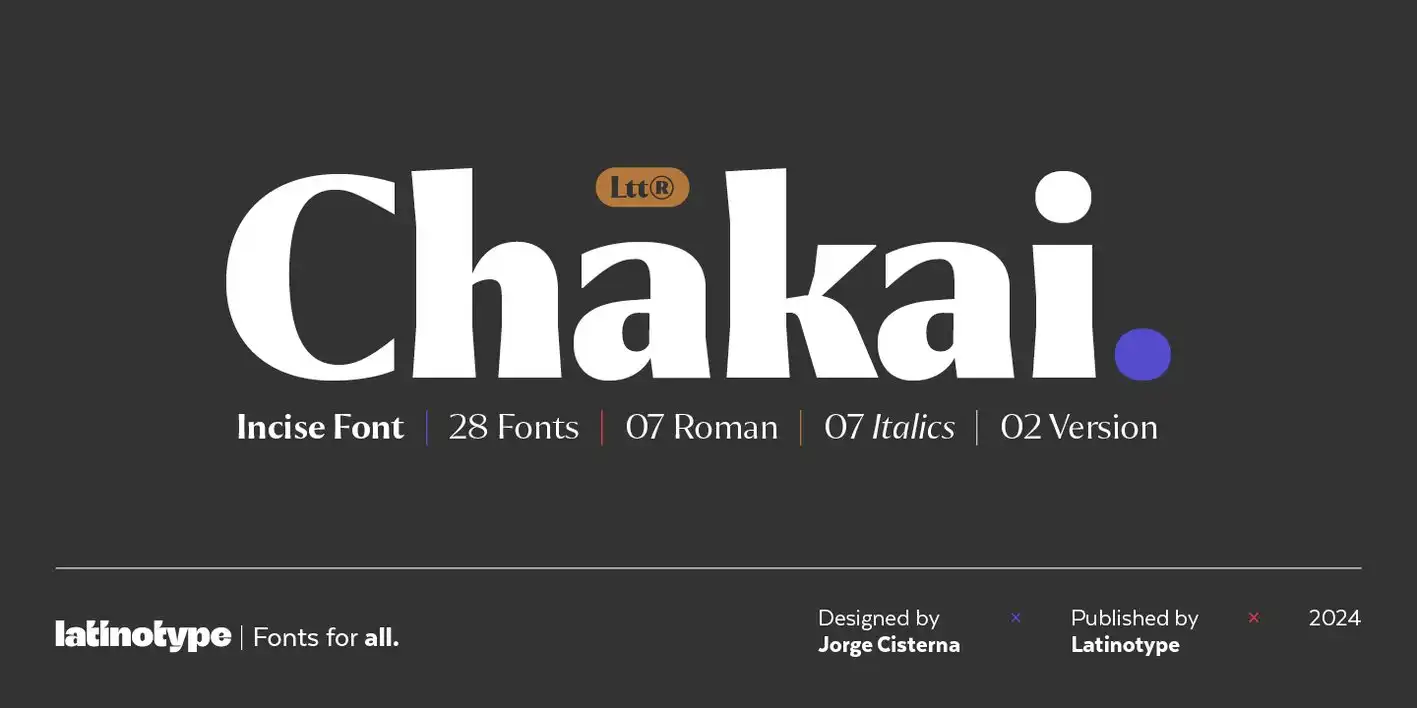
The Chakai Font is exceptionally suited for numerous cultural and sophisticated applications including tea house branding, Eastern philosophy publications, meditation center communications, zen garden signage, traditional wellness packaging, mindfulness app interfaces, spiritual retreat materials, cultural festival promotions, artisanal craft labeling, and holistic lifestyle marketing. Its distinctive character makes it particularly effective for wellness centers, cultural organizations, mindfulness brands, and lifestyle companies seeking to convey tranquility, cultural wisdom, and spiritual sophistication in their visual communications and brand presentations.
What makes the Chakai Font extraordinarily exciting is its perfect embodiment of Eastern aesthetic principles combined with contemporary typographic excellence. This elegant typeface captures the essence of traditional tea ceremony culture and mindful living while incorporating modern design elements that ensure optimal performance across today's diverse wellness market landscape. The font's captivating character emerges from its harmonious letterforms, balanced proportions, and carefully crafted details that evoke a sense of inner peace and cultural authenticity, making it perfect for brands seeking to establish credibility in the mindfulness sector and appeal to spiritually conscious audiences.
The Chakai Font family offers a comprehensive collection of weights and styles designed to accommodate various wellness and cultural branding requirements. The collection typically includes light, regular, medium, bold, and black weights, with many versions featuring serene italic variants that enhance the font's meditative appeal and cultural character. Some editions may include zen-inspired alternates, traditional ornaments, and mindfulness elements that provide additional design options for creating unique typographic treatments and spiritually focused brand applications.
Wellness professionals and cultural marketing specialists consistently select the Chakai Font Free Download for its exceptional tranquility and authentic appeal. The font features meticulously crafted spacing and kerning that ensures harmonious text flow and optimal readability across various mindfulness applications, from delicate tea packaging to large-scale wellness center signage. Its refined construction maintains serenity and clarity in both display and text uses, while the comprehensive character set includes uppercase and lowercase letters, numerals, punctuation marks, and special symbols, along with extensive language support for international wellness brands and global mindfulness communications.
The Chakai Font represents the perfect fusion of Eastern wisdom and contemporary design standards, combining cultural authenticity with modern functionality. Its peaceful aesthetic demonstrates mindful sophistication while maintaining the professionalism required for serious wellness business applications. The font's remarkable adaptability allows it to work effectively in both traditional cultural contexts and modern mindfulness branding, ensuring consistent tranquil appeal across wellness websites, meditation materials, cultural publications, and holistic lifestyle communications.
Embrace mindful design and cultural authenticity with the peaceful elegance and spiritual sophistication of the Chakai Font, the ultimate choice for wellness typography excellence.